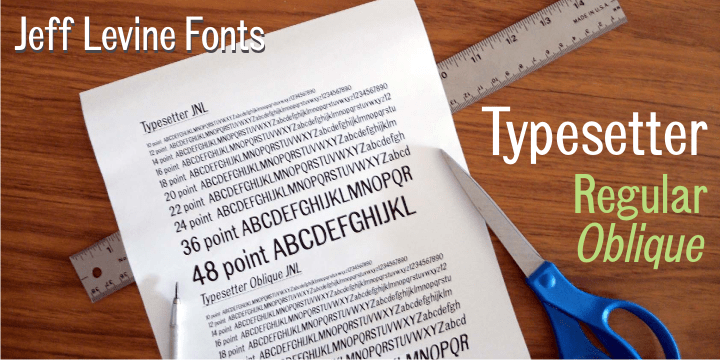
Typesetter
Typesetter JNL is based on an old-style 'grotesk' (or 'grotesque') text face popular with printers and rubber stamp makers since the 1800s. The nonconformist character shapes and line widths are reminiscent of hand-cut type of the era.
Typesetter JNL Regular
Typesetter JNL Oblique